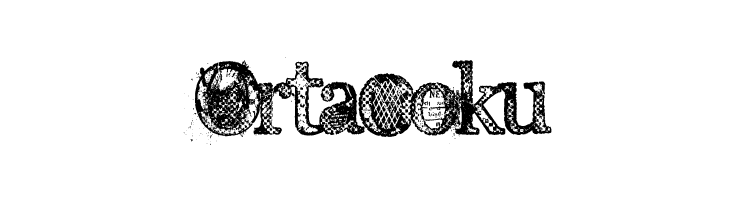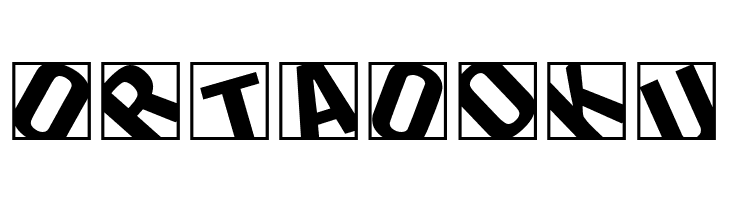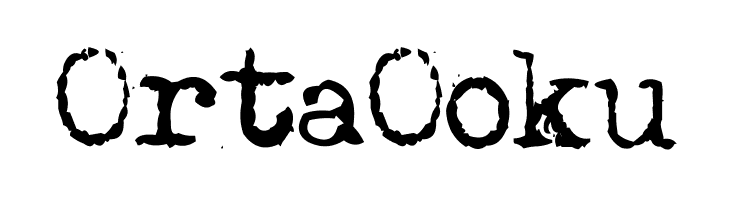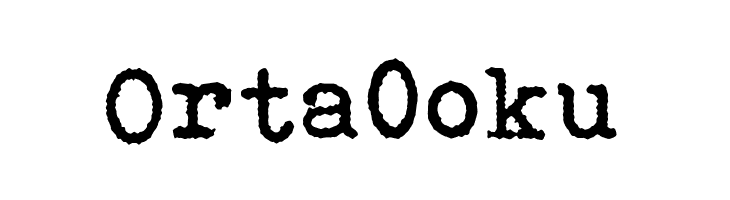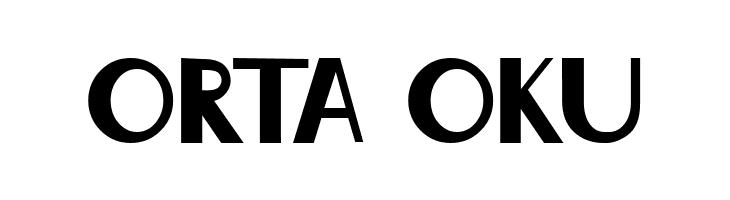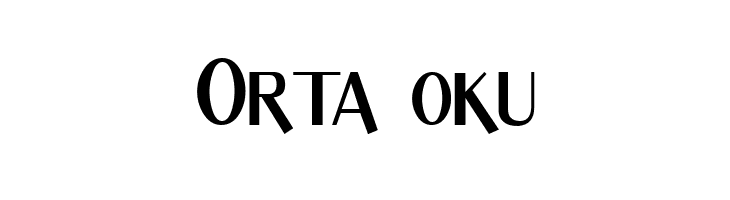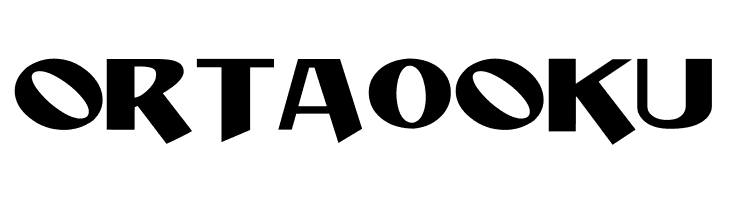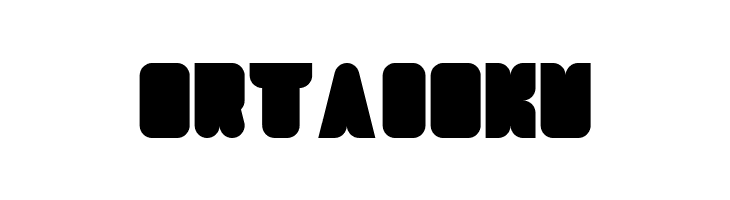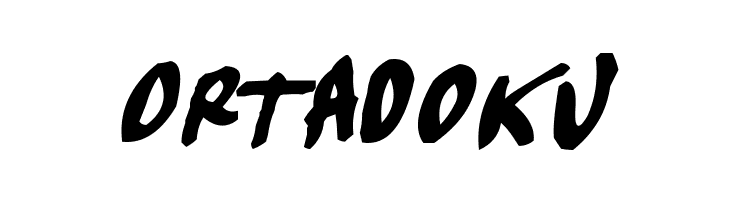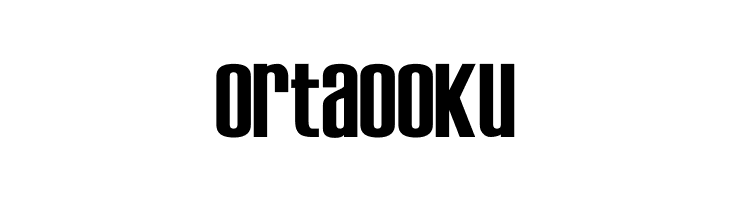
A bold, textured serif font with a vintage, distressed appearance.
A bold, modern font with angular characters enclosed in squares.
A distressed, vintage typewriter-style font with a rough, textured appearance.
A vintage typewriter-style font with bold, textured characters.
A bold, modern sans-serif font with geometric lines and medium contrast.
A bold, modern font with dynamic strokes and geometric elements.
A bold, geometric font with sharp edges and high contrast.
A bold, handwritten-style font with expressive, flowing strokes.
A bold, condensed font with a modern and impactful style.